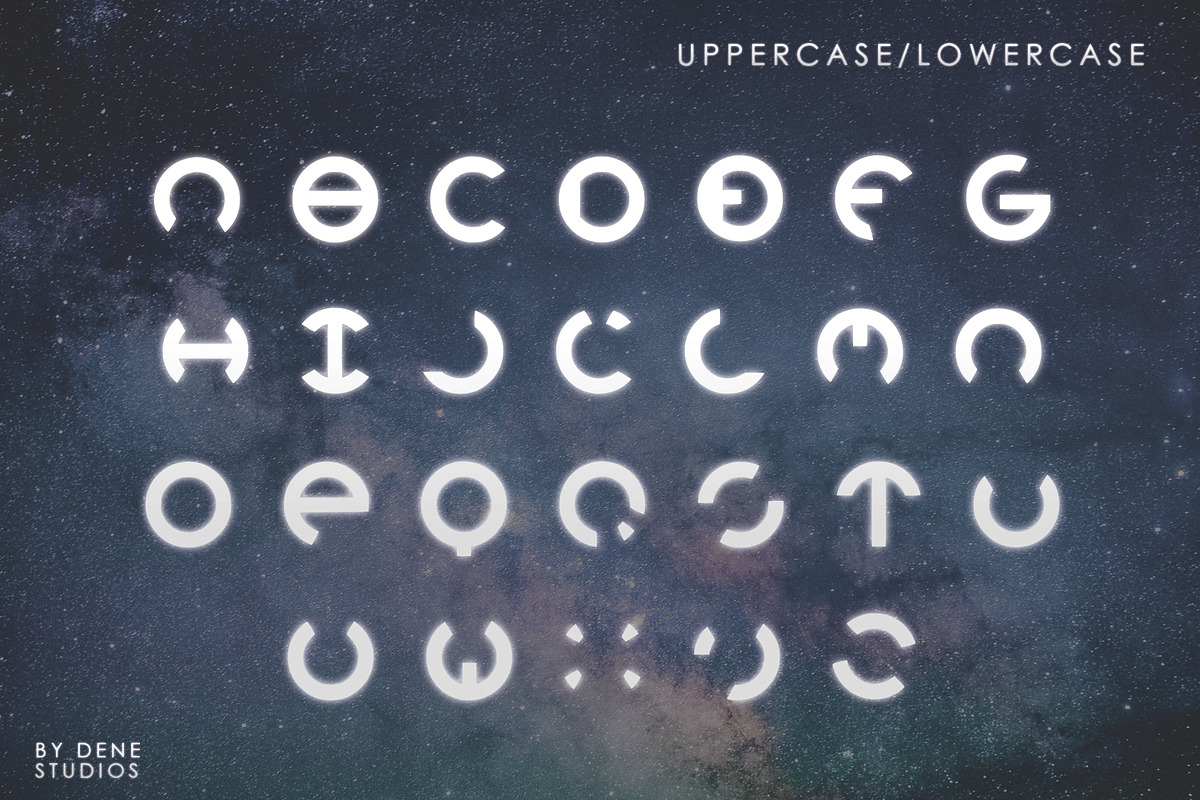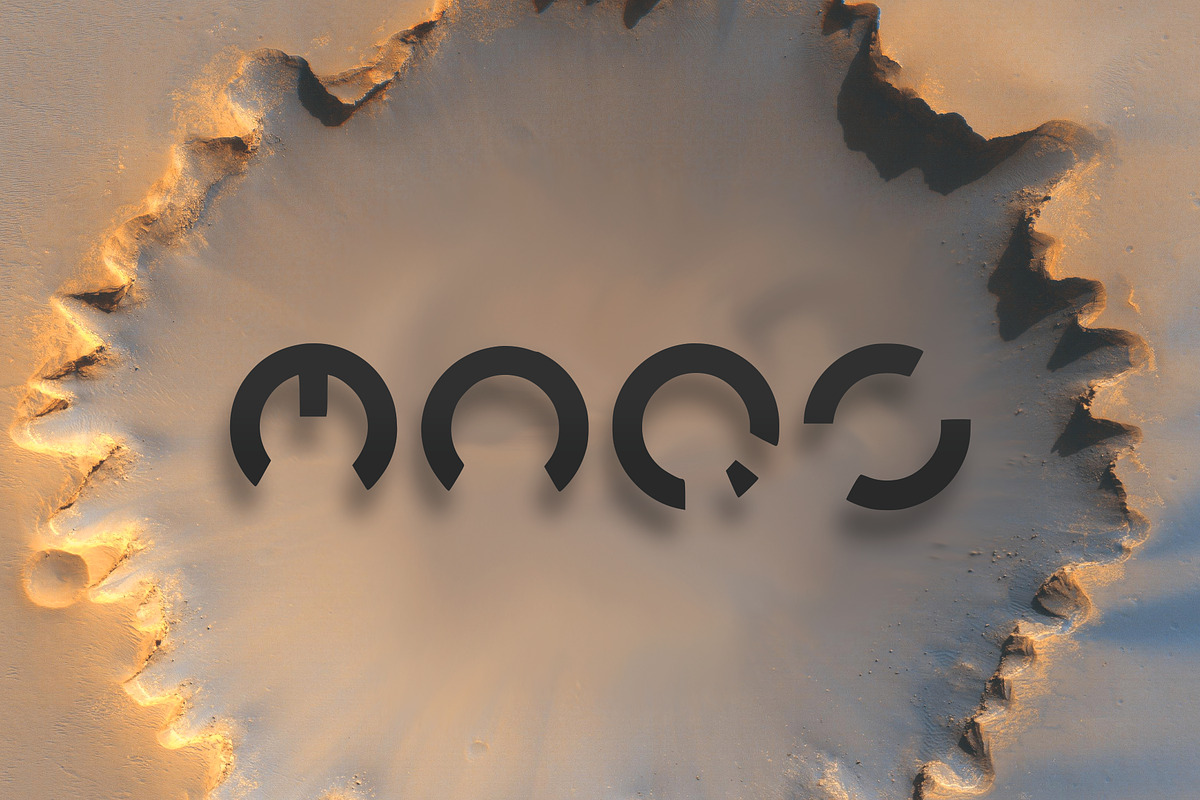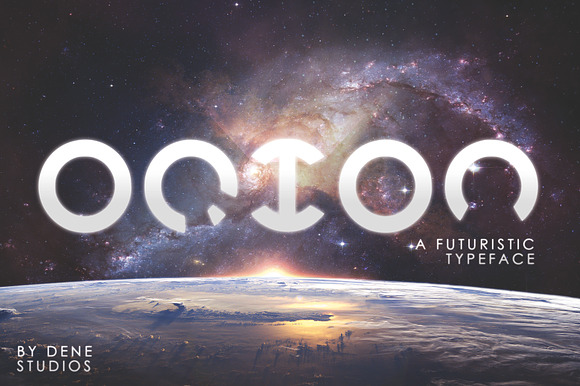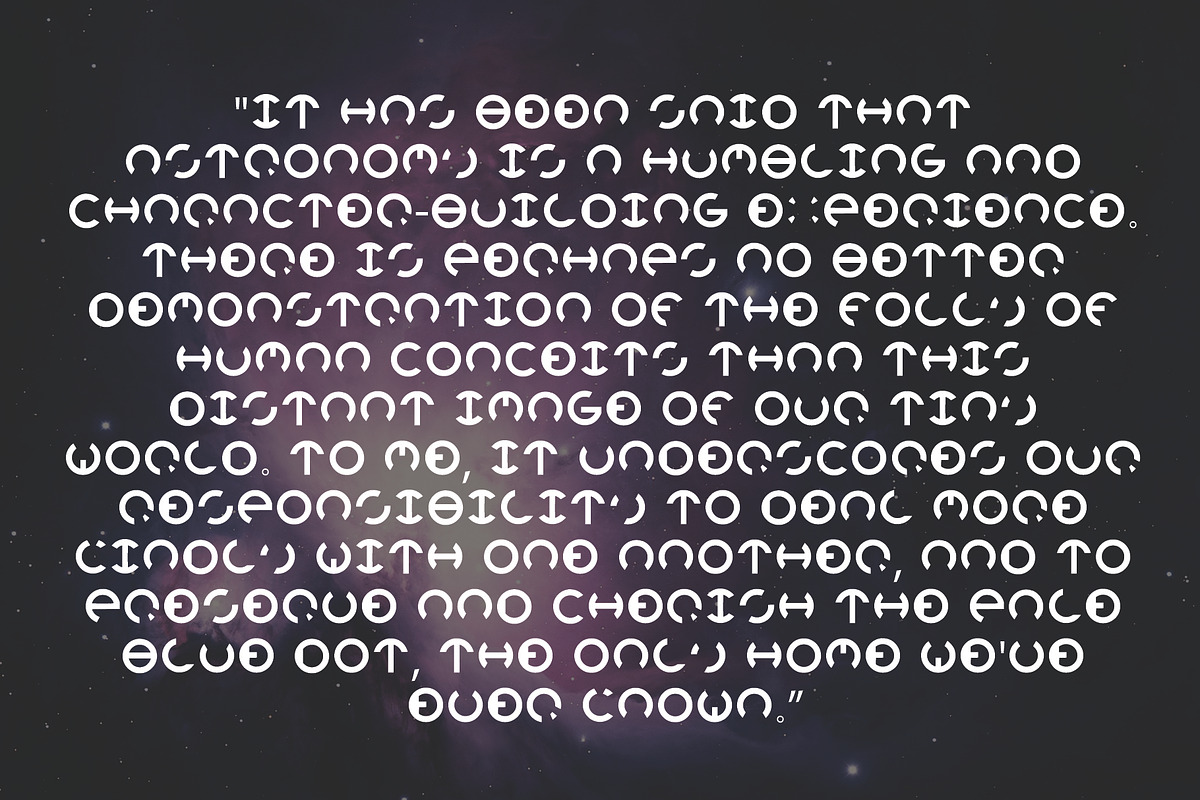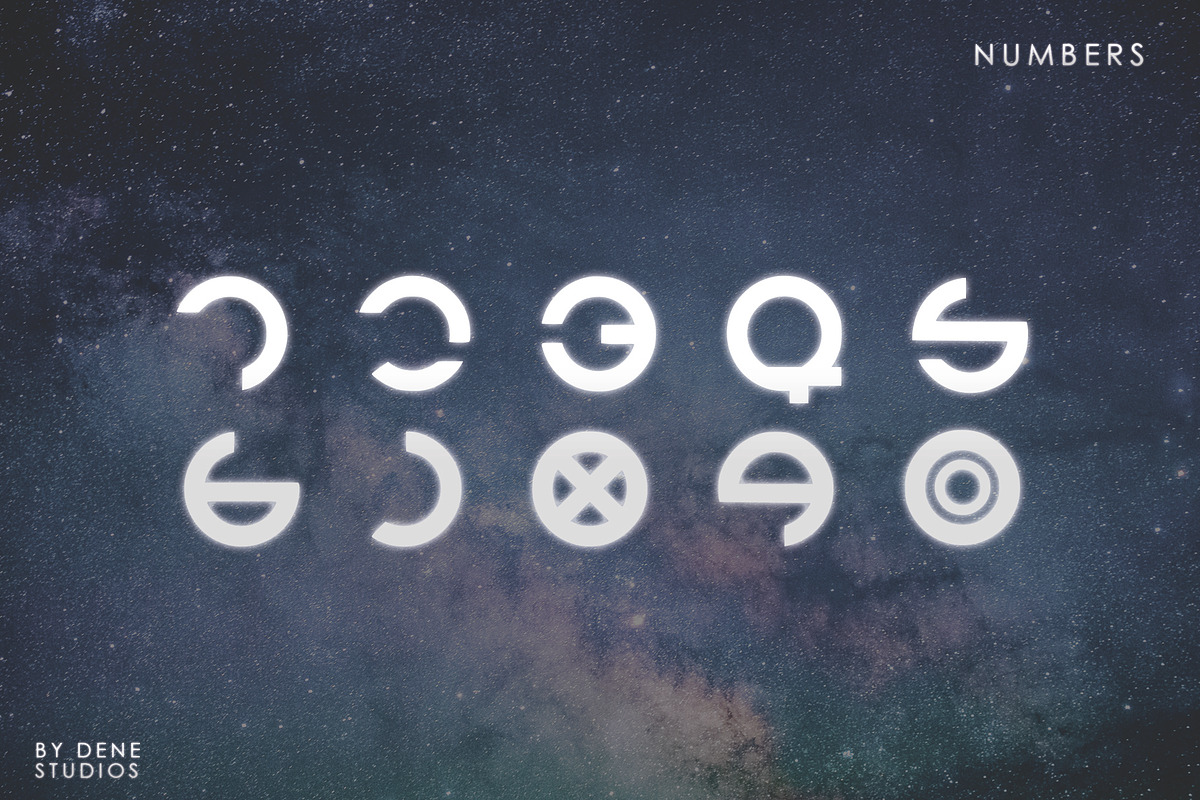
ORION - A Futuristic Typeface
ORION is a unique and creative design that has been passionately handcrafted to give you a futuristic typeface. Contains uppercase letters as well as numbers.
- Contains uppercase letters as well as numbers.
ORION - A Futuristic Typeface by Dene Studios fits naturally into Branding, posters, packaging, typography.